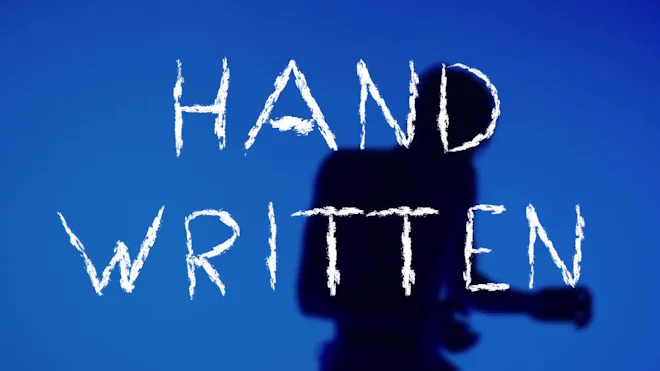
This stock motion graphics video pack includes 44 different clips of hand-drawn brush letters, numbers, and symbols on a transparent alpha channel in a seamless loop. FPS is 16.